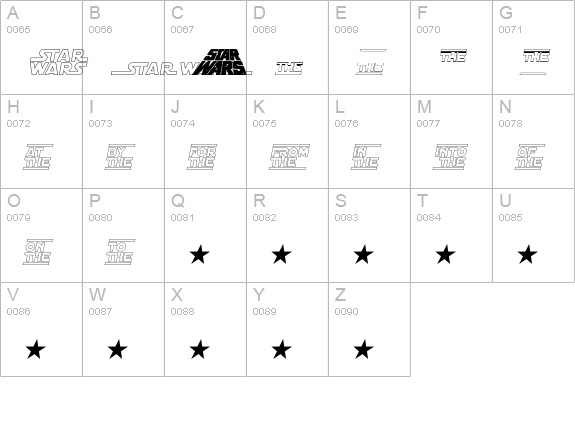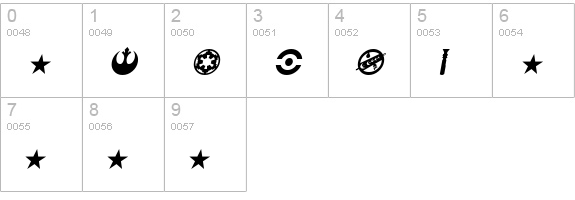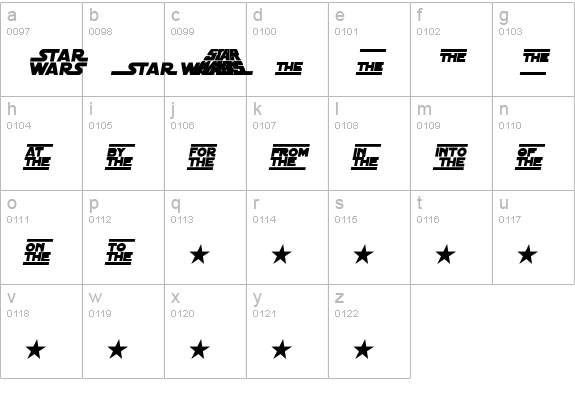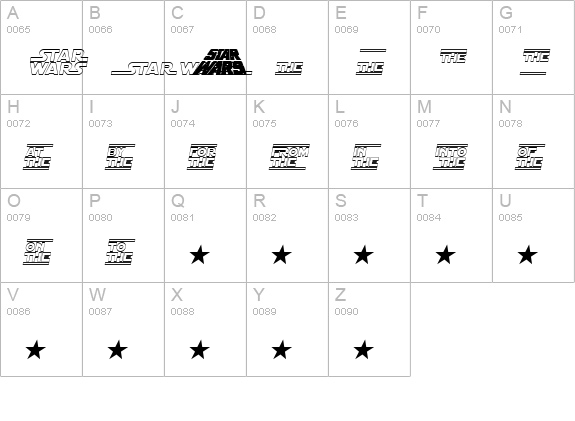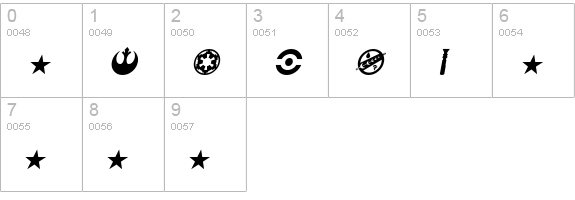
Distant Galaxy Symbols Italic is a distinctive, italic variant in the Distant typeface family \xE2\x80\x94 well suited to design and typography projects.
Distant Galaxy Symbols Italic font is a stunning and captivating typeface inspired by the vastness of outer space. Its intricate symbols and elegant italic style make it perfect for adding a touch of mystery and sophistication to your designs. Whether you're creating a futuristic poster, a sci-fi book cover, or a space-themed website, this font will elevate your project to new heights. What's even better is that Distant Galaxy Symbols Italic font is completely free to download at FontsMarket.com. That's right, you can access this unique and visually striking font without spending a dime. Don't miss out on the opportunity to enhance your creative endeavors with this exceptional typeface. Download Distant Galaxy Symbols Italic font today and let your imagination soar to the stars.